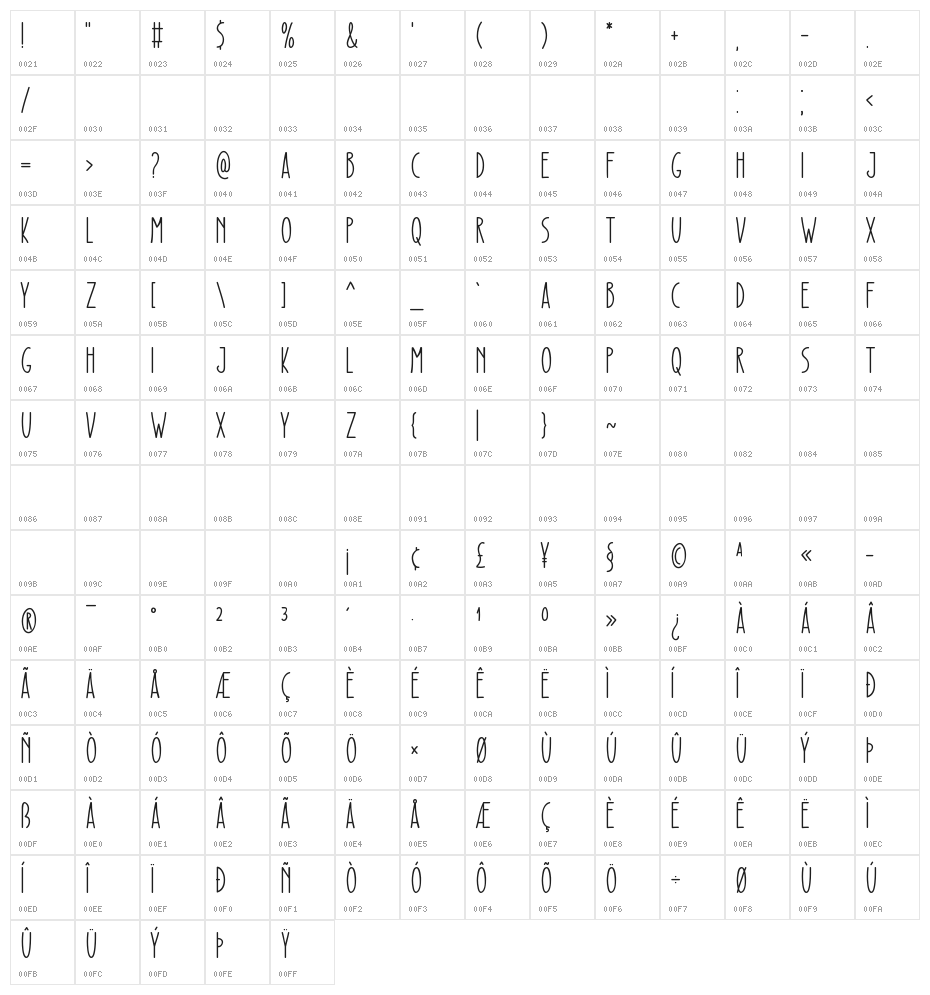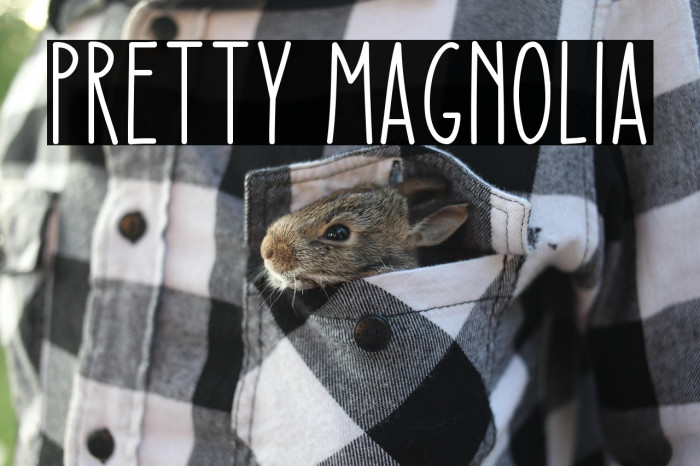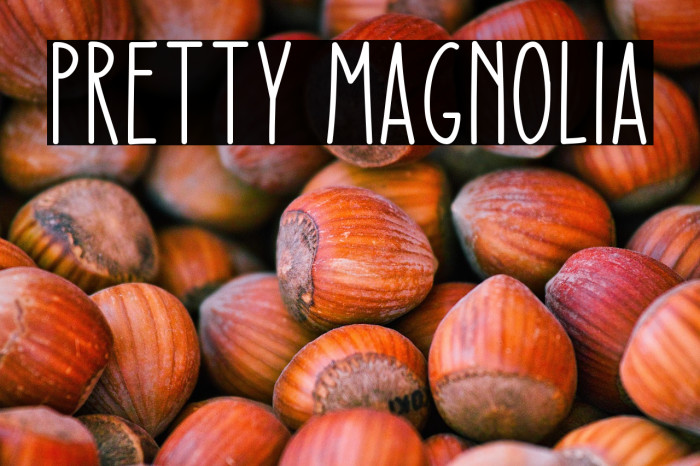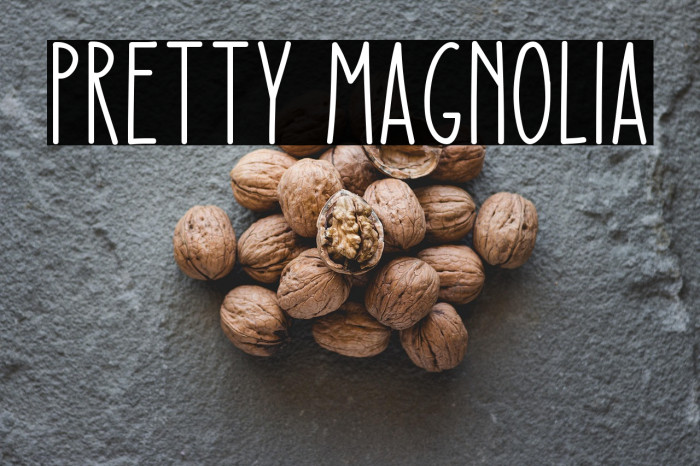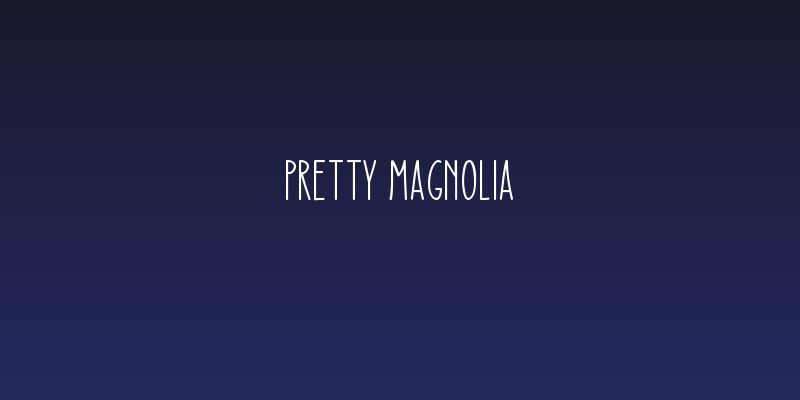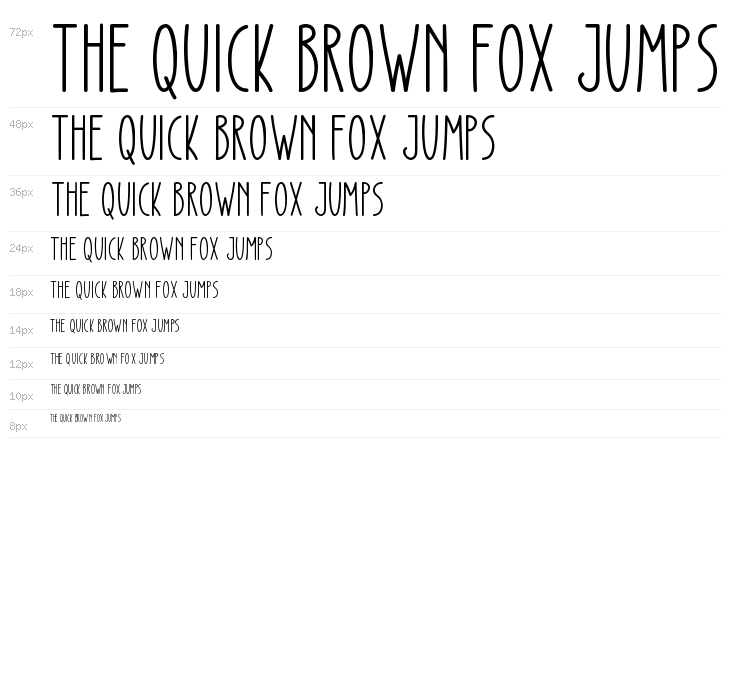
Pretty Magnolia Font
Pretty Magnolia Description
This font features a playful and whimsical style with tall, narrow characters that exhibit a hand-drawn quality. The strokes are consistent in width, giving it a clean and uniform appearance. The uppercase and lowercase letters maintain a cohesive look, with slightly rounded edges that add a friendly touch. The numerals and special characters follow the same design principles, ensuring a harmonious overall look. This font's simplicity and charm make it versatile for various creative applications.
| Proposed Projects | Ideal for children's books, greeting cards, playful branding, and creative posters. |